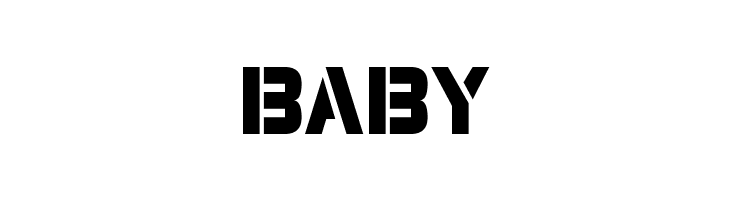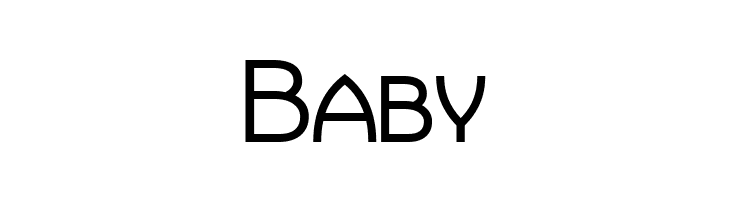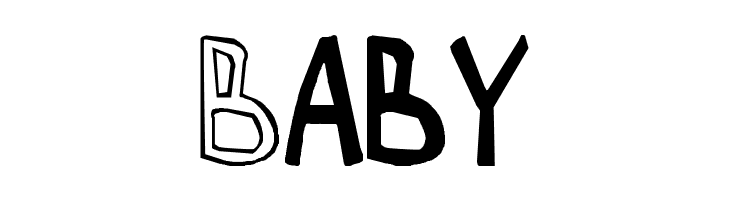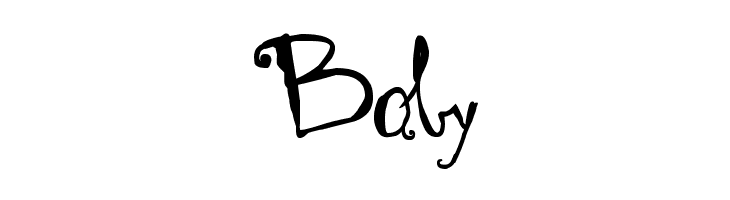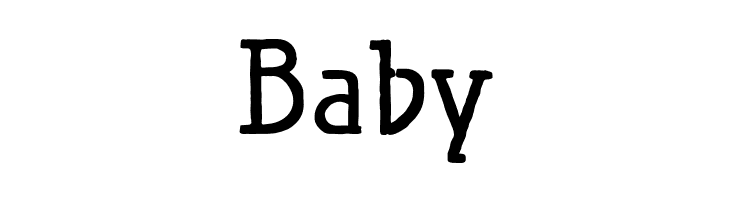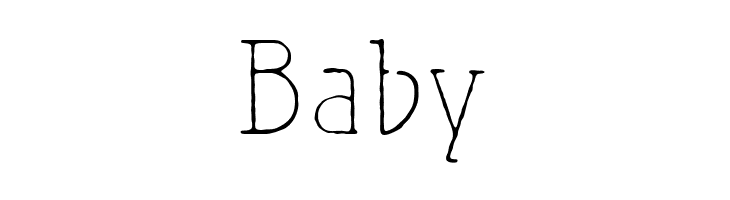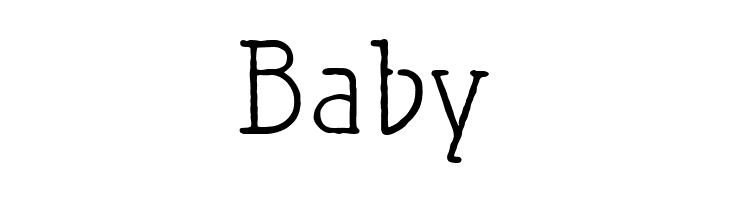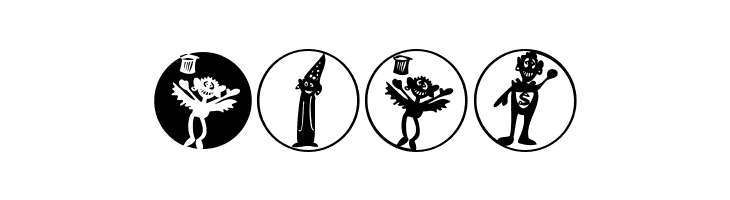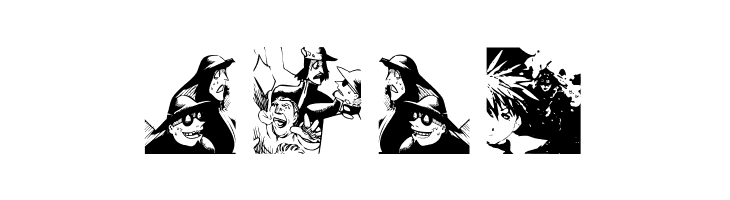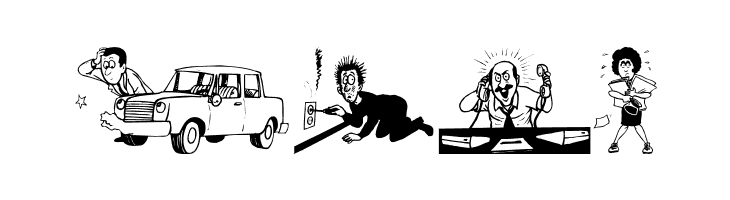
A playful, hand-drawn font with elongated, irregular characters.
A bold, geometric font with a modern and industrial style.
A geometric, minimalist font with thin, even strokes and angular shapes.
A distinctive, hand-drawn style font with elegant, irregular strokes.
A bold, artistic serif font with unique curves and strong presence.
An artistic, handcrafted font with thin, elongated strokes and subtle irregularities.
A hand-drawn, artistic font with unique and playful letterforms.
A handcrafted, artistic font with a vintage flair and modern twist.
A bold, handcrafted serif font with medium contrast and slightly condensed width.
A bold, textured serif font with a handcrafted appearance.
A whimsical, hand-drawn font with a vintage feel and irregular strokes.
A thin, hand-drawn serif font with an elegant and organic style.
A bold, distressed font with a vintage, industrial aesthetic.
A hand-drawn, light font with a geometric yet organic style.
An elegant and ornate script font with intricate flourishes.
A bold, geometric stencil font with a military-industrial aesthetic.
A bold, playful font with thick, rounded strokes and a whimsical style.
A playful, hand-drawn font with a casual and informal style.
A decorative manga-inspired font with illustrated characters.
Expressive manga illustrations form each character.
A bold, hand-drawn font with a scribbled texture and playful style.
A whimsical decorative font featuring cartoon figures in circular frames.
A playful, dynamic font with geometric and organic shapes.
A bold, angular font with a playful, retro video game vibe.
Hand-drawn maritime illustrations in a decorative dingbat style.
A bold, geometric font with a modern, art deco-inspired style.
A display font where each character is a distinct illustrated mask.